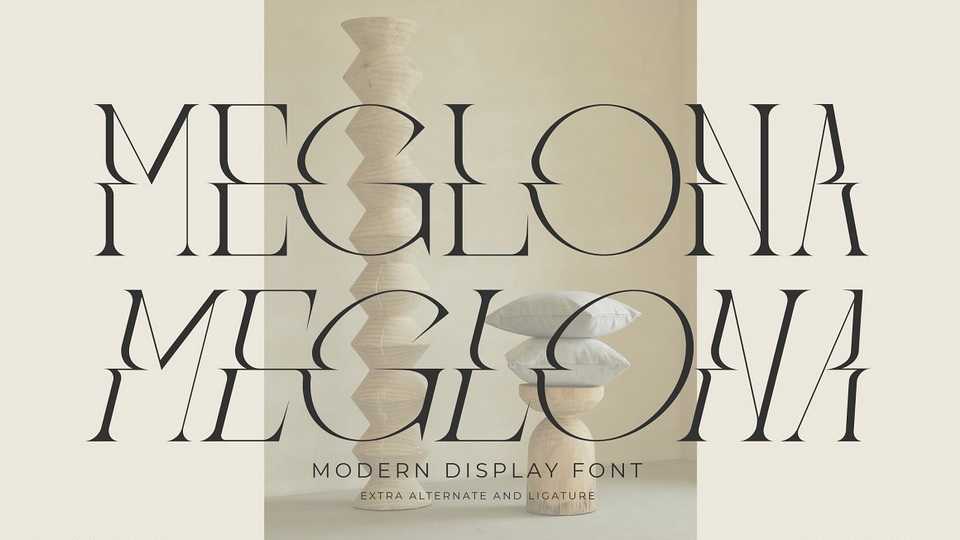
Download Meglona font, a modern serif typeface with a sharp look and unique letterforms. Meglona font is perfect for an elegant and luxury logo, book or movie title design, fashion brand, magazine, clothes, lettering, quotes, and so much more.